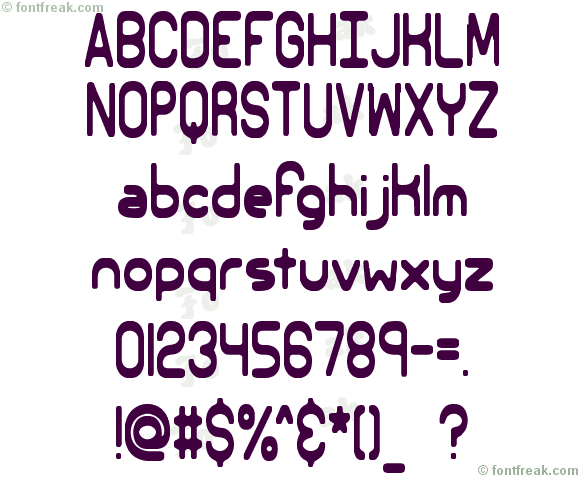
Elsewhere BRK
Elsewhere 2 BRK
About Elsewhere
The Elsewhere font by Ænigma Fonts is a distinctive display typeface that captures attention with its unique character. Characterized by rounded shapes and a playful aesthetic, Elsewhere features a medium stroke weight that provides a friendly yet bold appearance. The contrast is subtle, allowing for versatility in various applications while maintaining readability. Its generous spacing contributes to a light, airy feel, making it approachable and engaging.
This font excels in creative contexts, making it an excellent choice for a variety of projects. It can be effectively used in wedding invitations, where its whimsical nature adds a touch of elegance and charm. Elsewhere is also suitable for movie posters, lending a modern flair that draws the viewer's eye. Small business owners will find it perfect for restaurant menus, where it can create a welcoming atmosphere that invites customers to explore the offerings. Additionally, content creators can utilize Elsewhere in social media graphics, ensuring their visuals stand out in a crowded digital landscape.
The target audience for the Elsewhere font includes graphic designers, small business owners, and content creators looking to enhance their visual communication. With its creative potential, this font offers a refreshing alternative to more traditional typefaces, catering to those who wish to express originality and flair.
What makes the Elsewhere font truly stand out is its balance of playfulness and professionalism. The unique design elements, combined with its versatility, allow it to adapt to various contexts without losing its charm. For anyone seeking a distinctive typeface that can elevate their design projects, the Elsewhere font free download is an invaluable resource that promises to inspire creativity and innovation in every use.